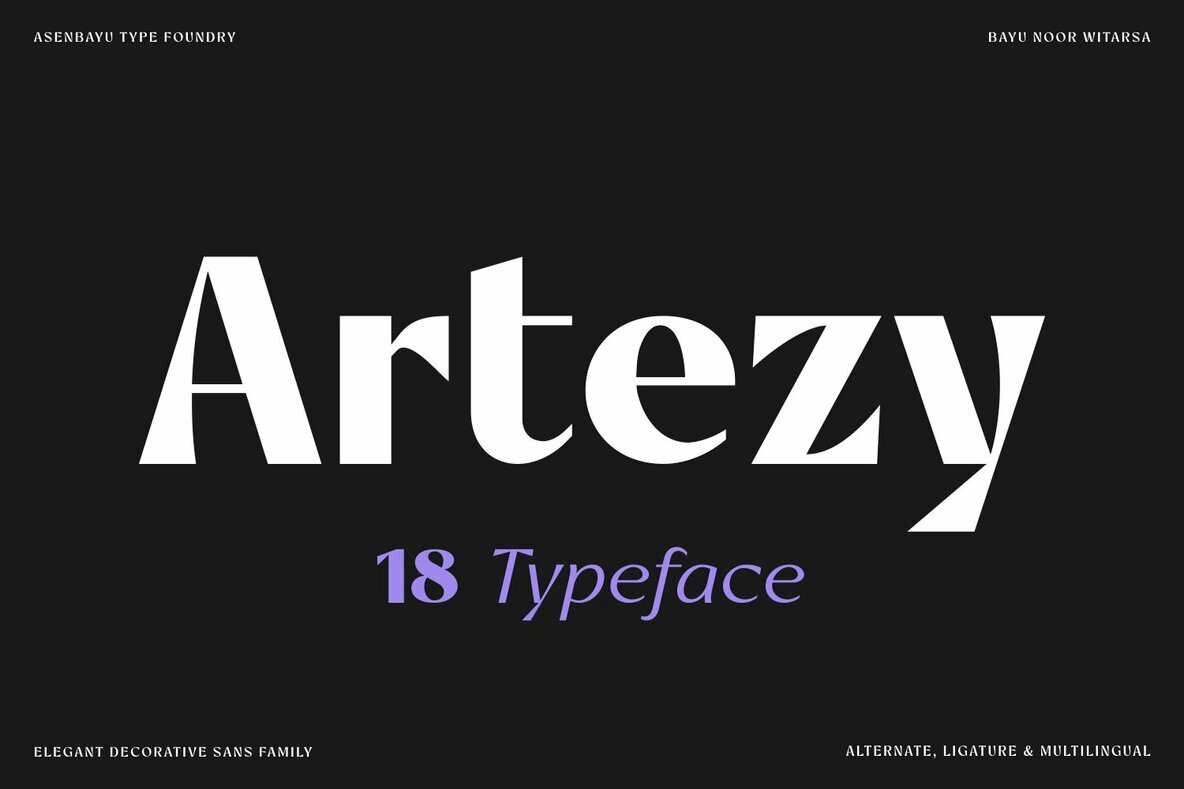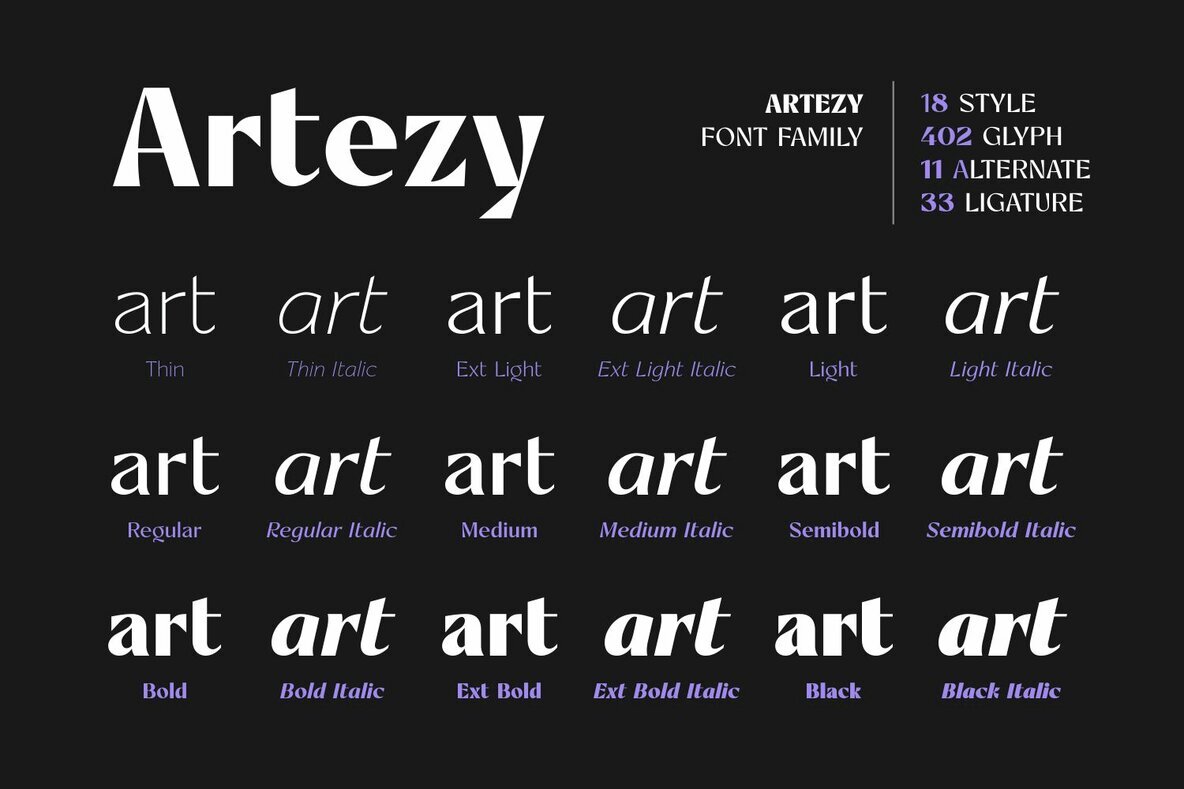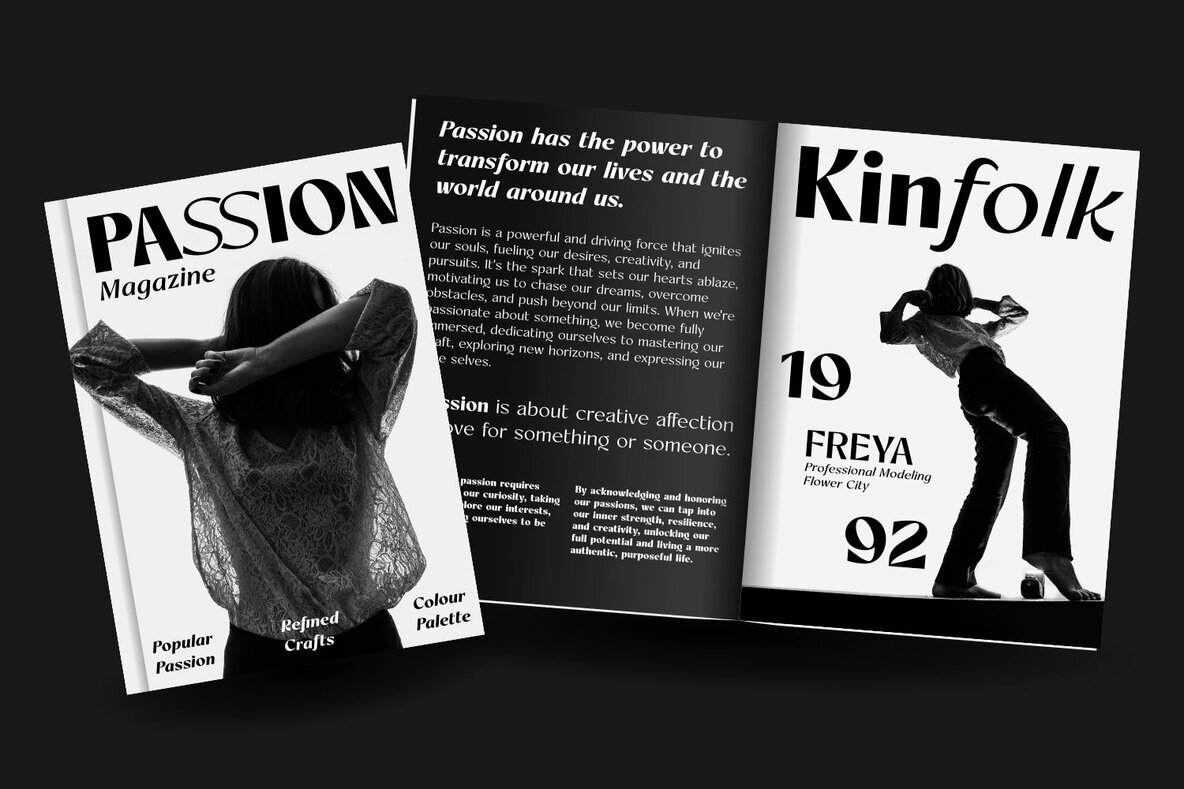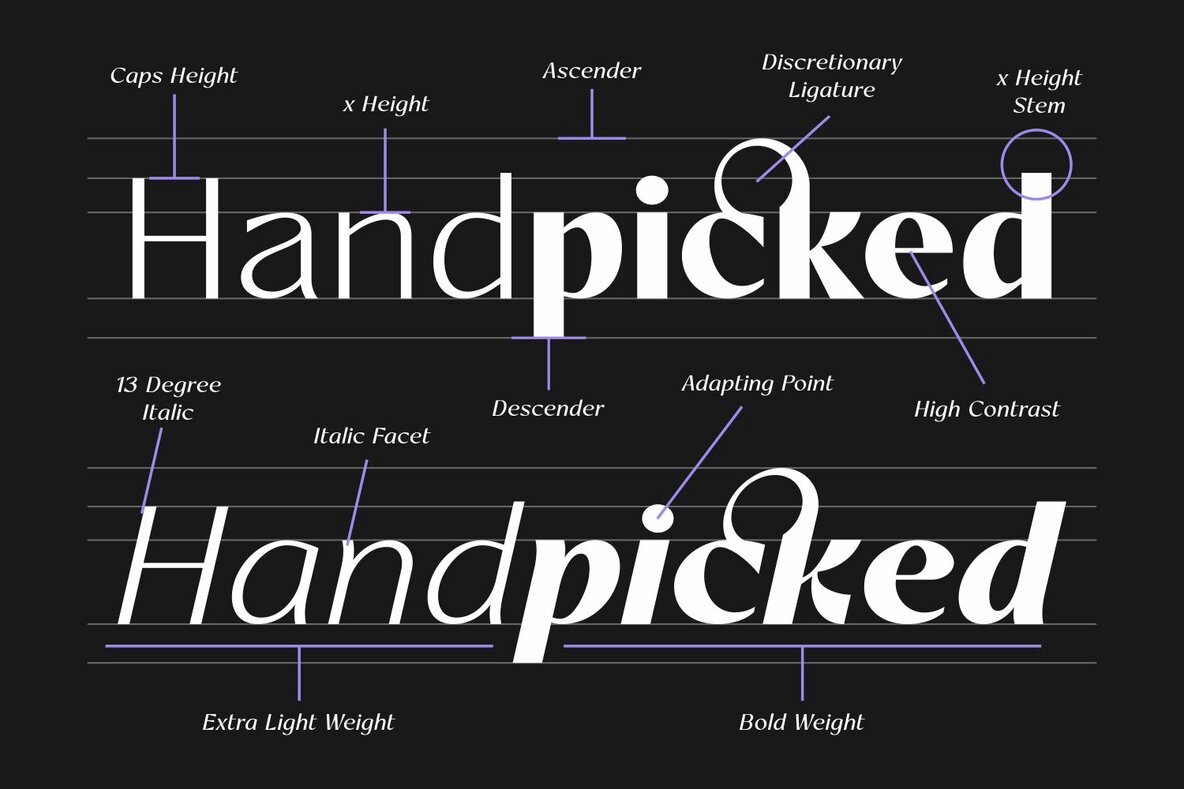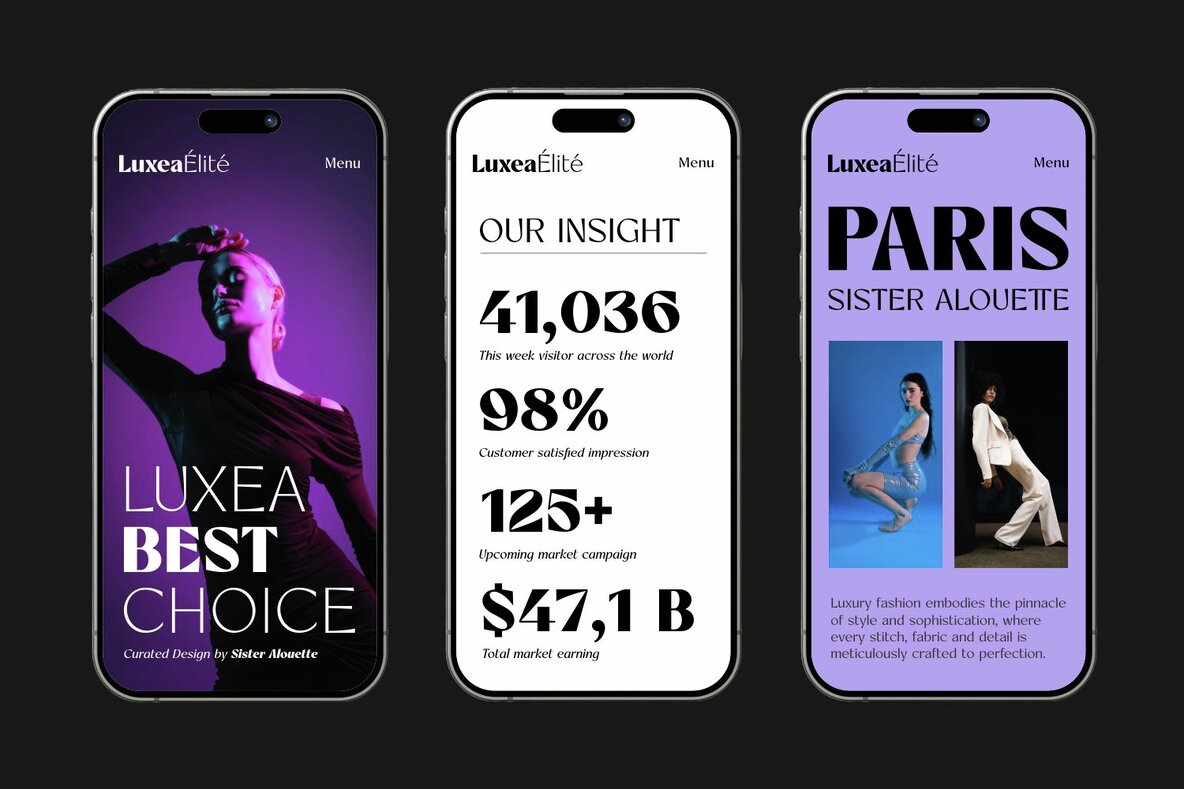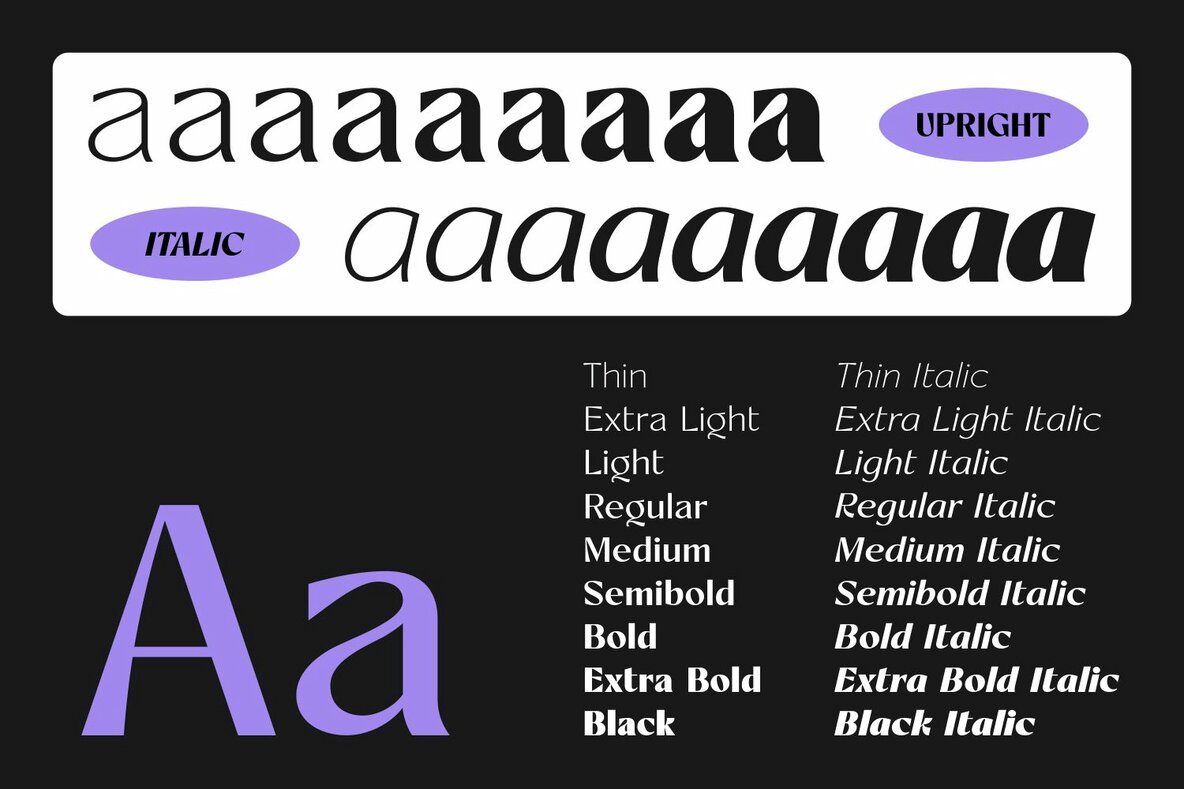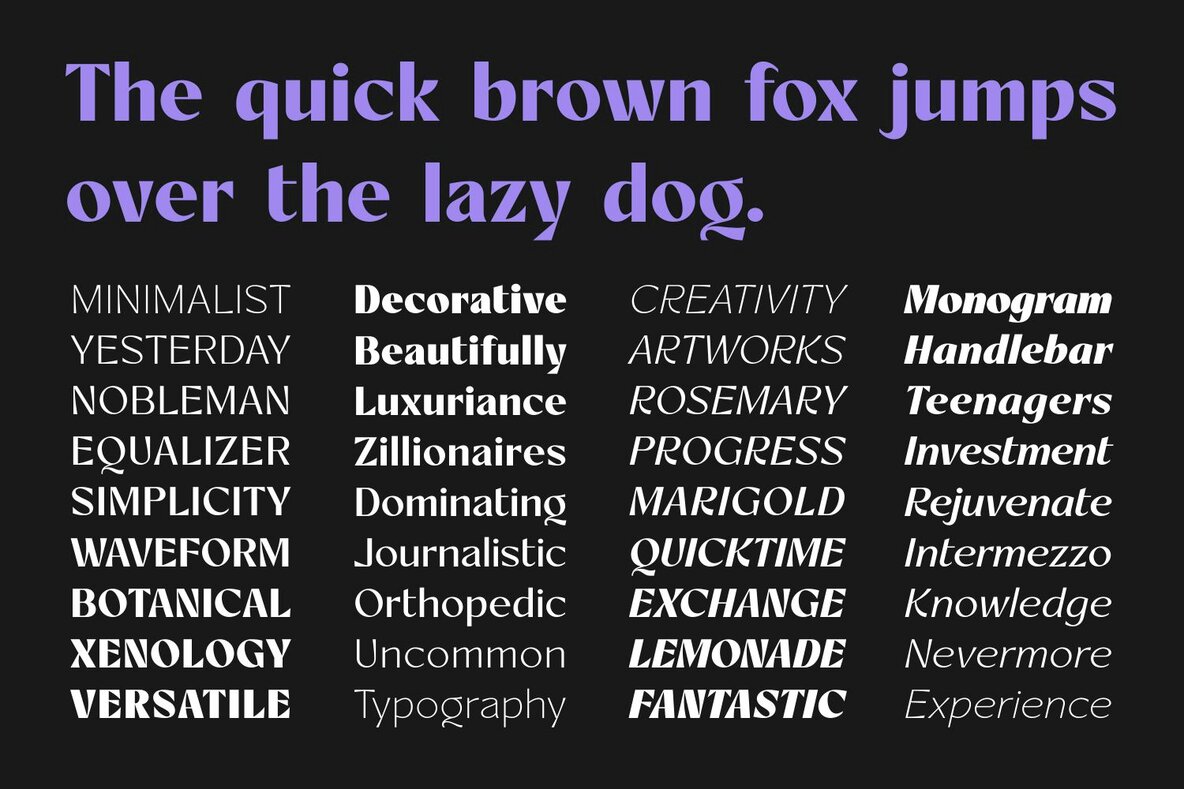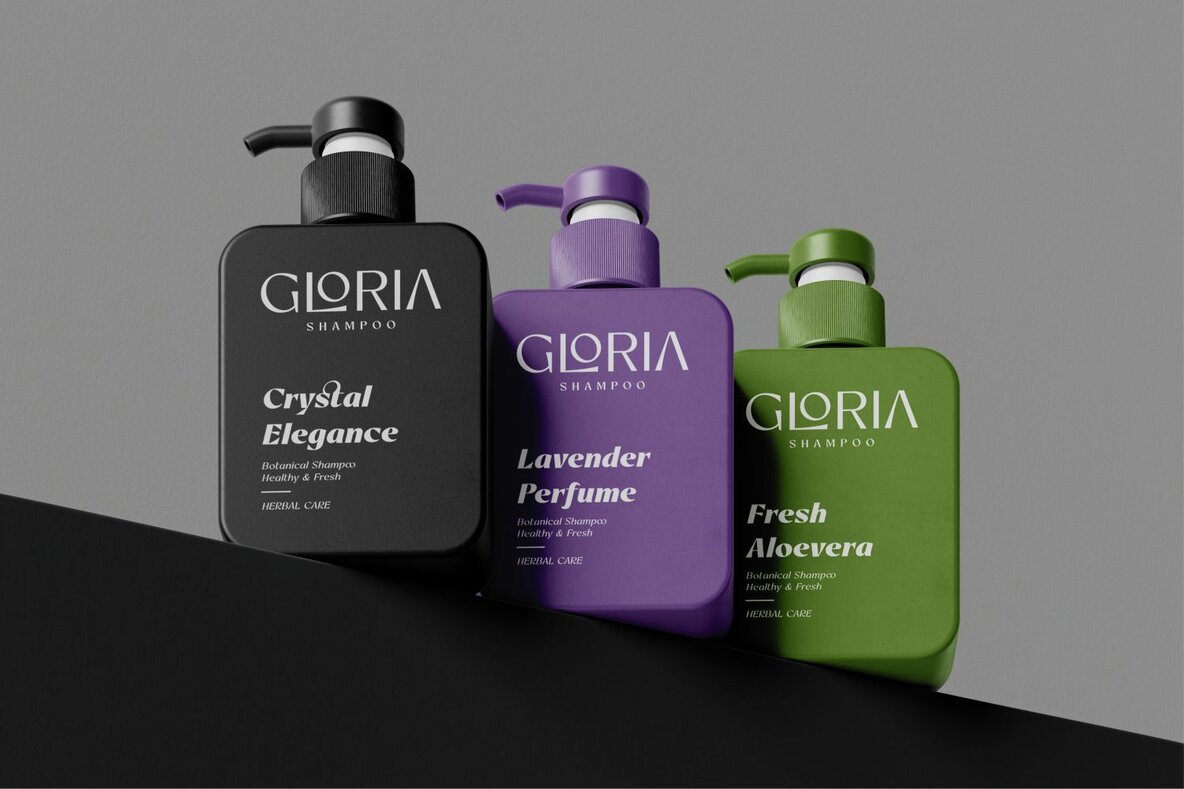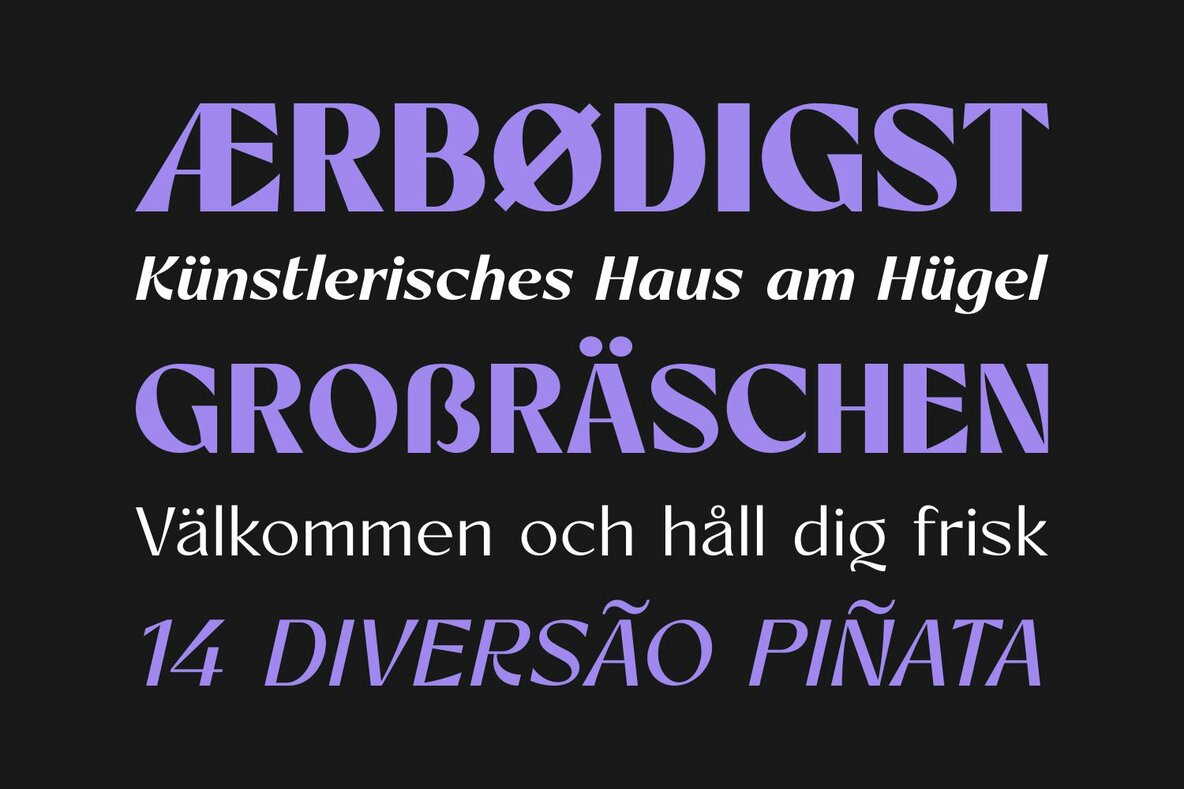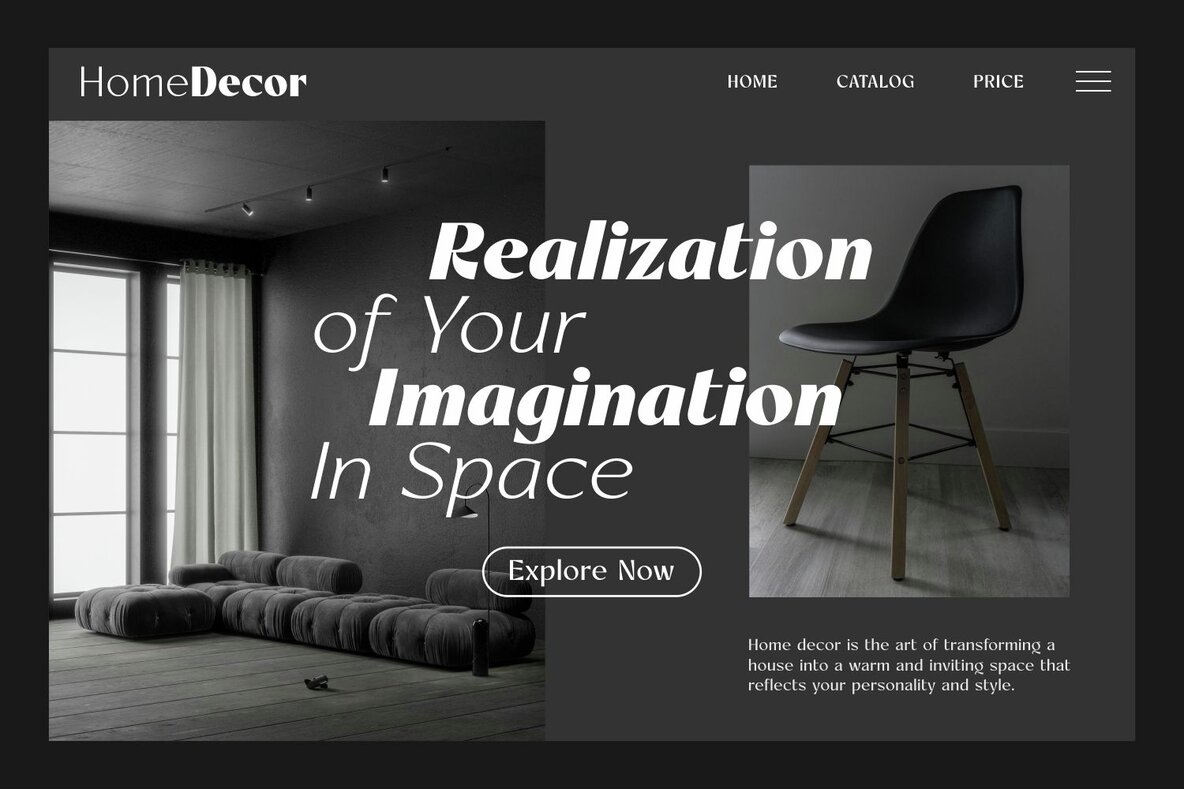
Artezy Font
The Artezy font family is a sophisticated collection of sans serif fonts, inspired by the fusion of 'Art' and 'Ease.' This family comprises 18 fonts, each defined by luxurious aesthetics and modern lines—creating a high-contrast visual appeal. Perfectly suited for luxury branding, captivating logo designs, and various creative projects, Artezy brings a touch of class to magazines, posters, packaging, labels, websites, and more.Artezy: Elegant Sans Serif Font Family